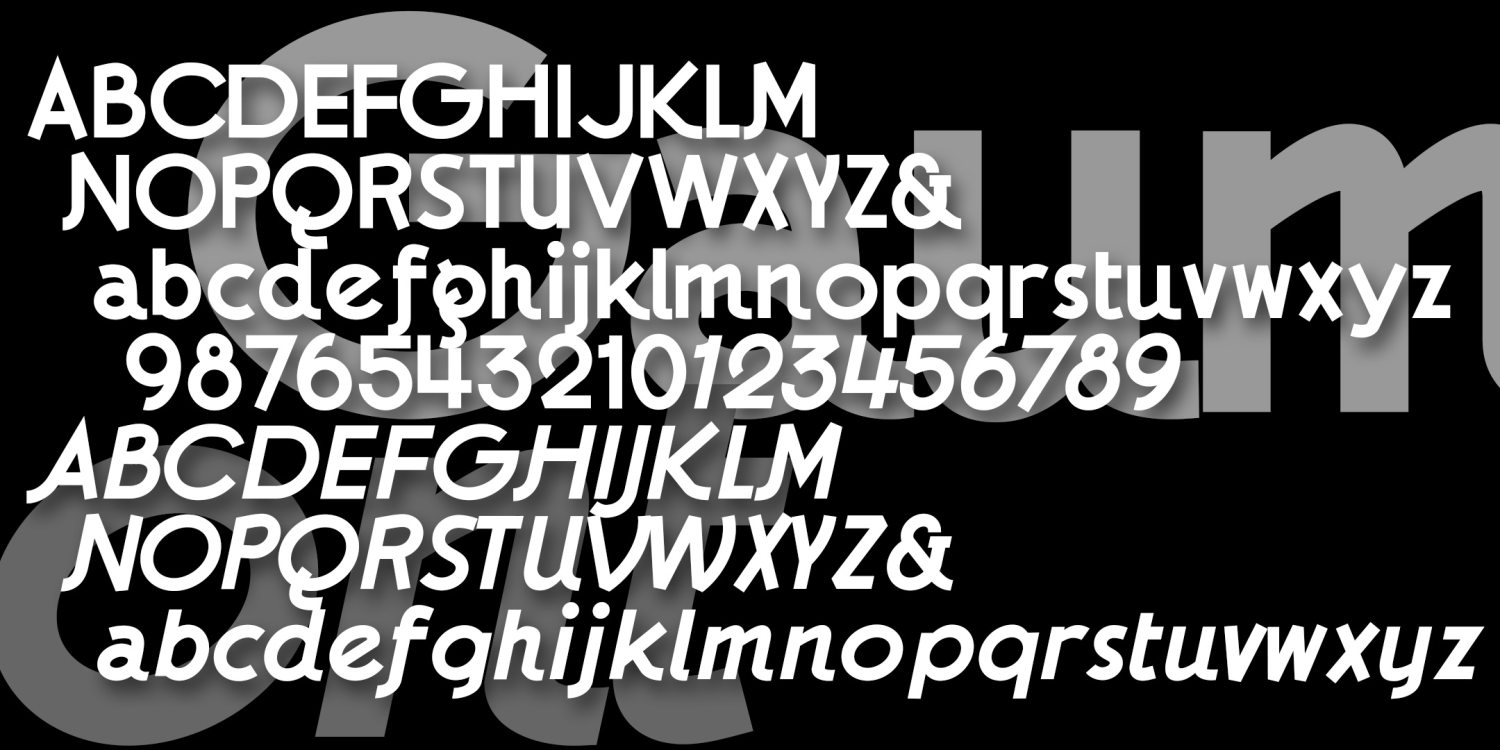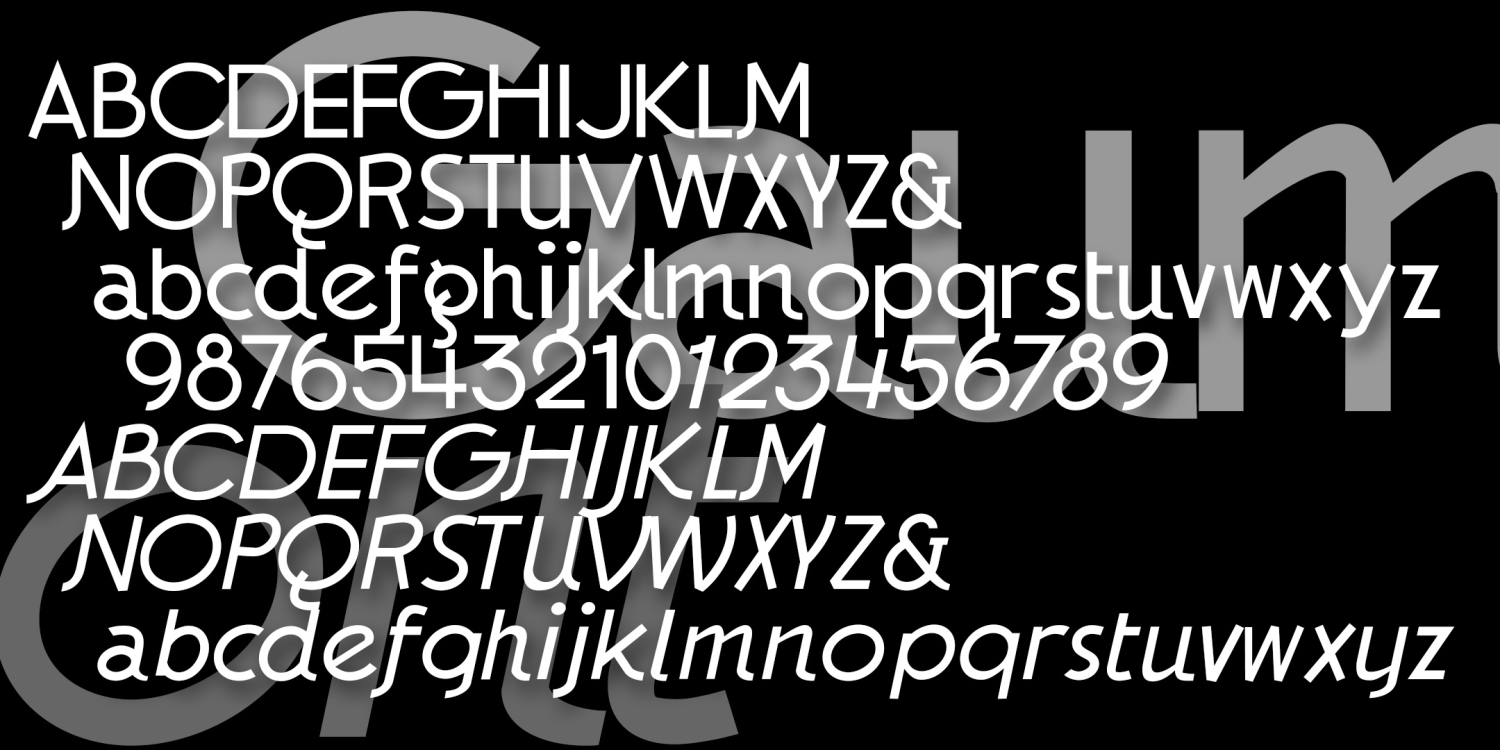
Gaumont
The GAUMONT fonts are elegant sans serif fonts in the Art Deco style. These were inspired by the hand-lettered titles of Alfred Hitchcock's 1935 The 39 Steps, a Gaumont-British Picture. I've taken a few liberties, regularizing the characters but preserving the quirkier letterforms and rounding out the font in the same spirit. In Regular, Italic, and Light varieties.